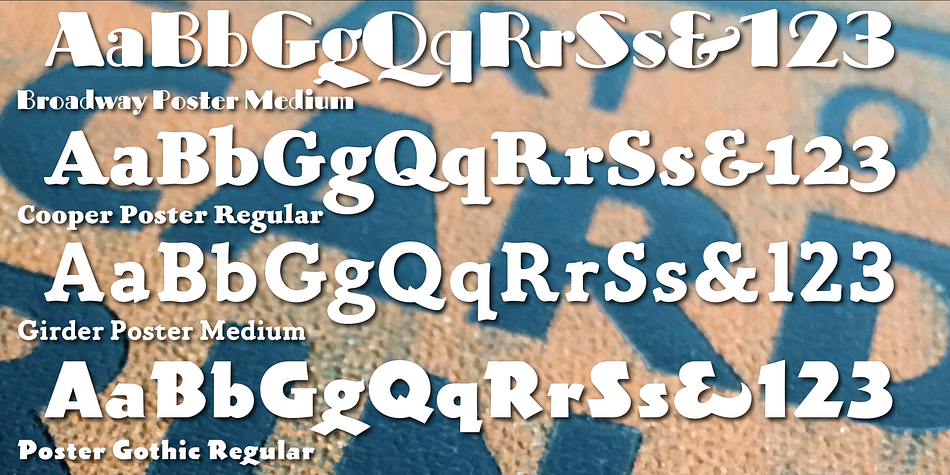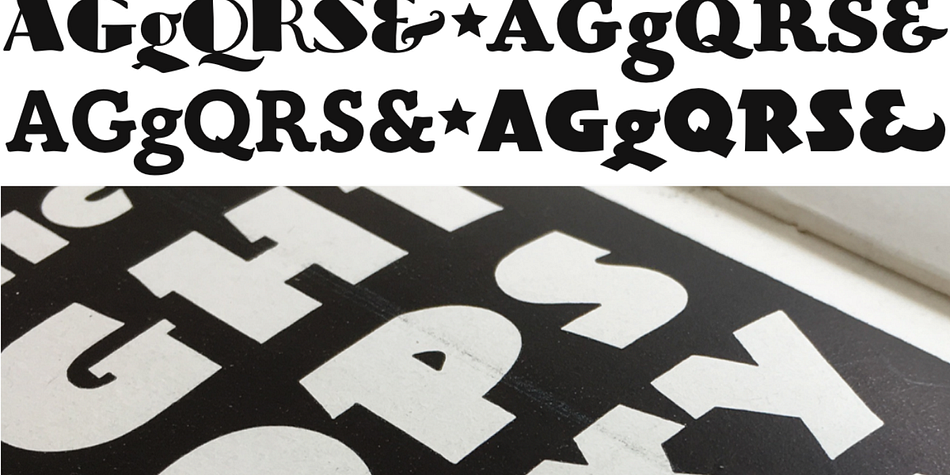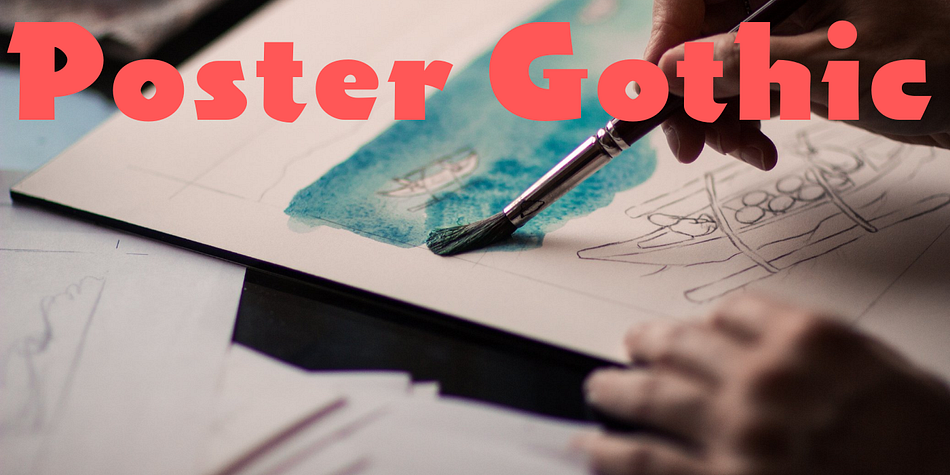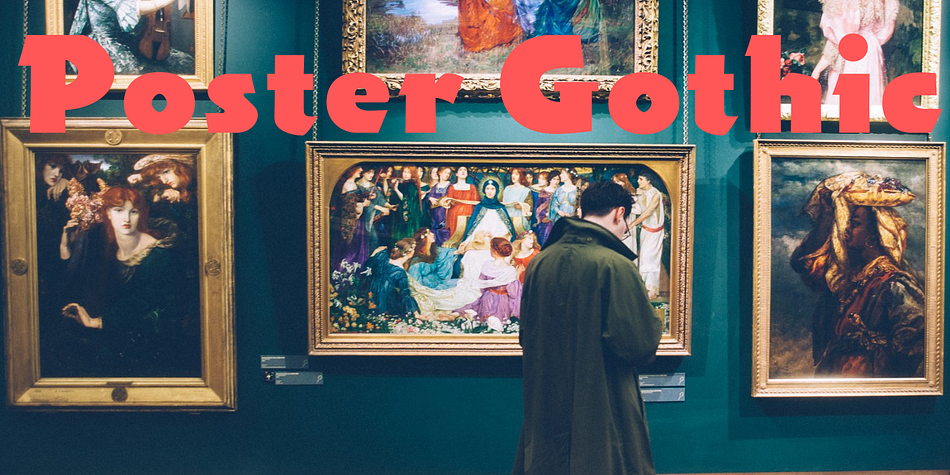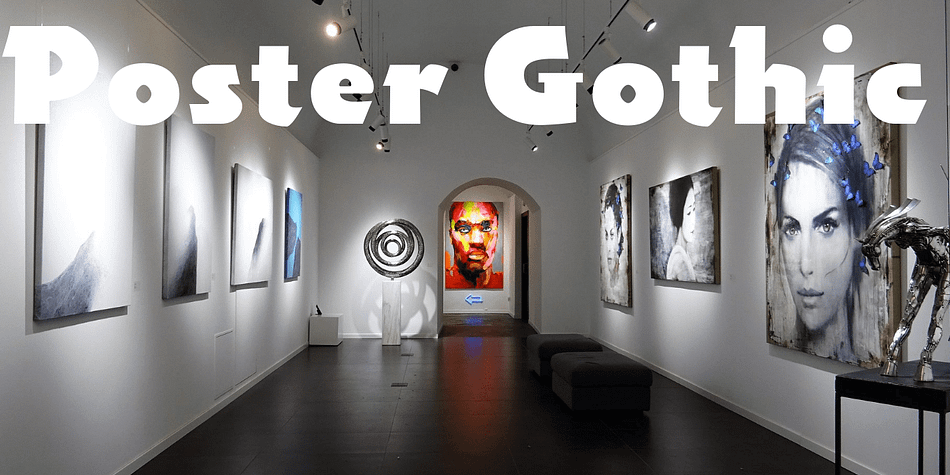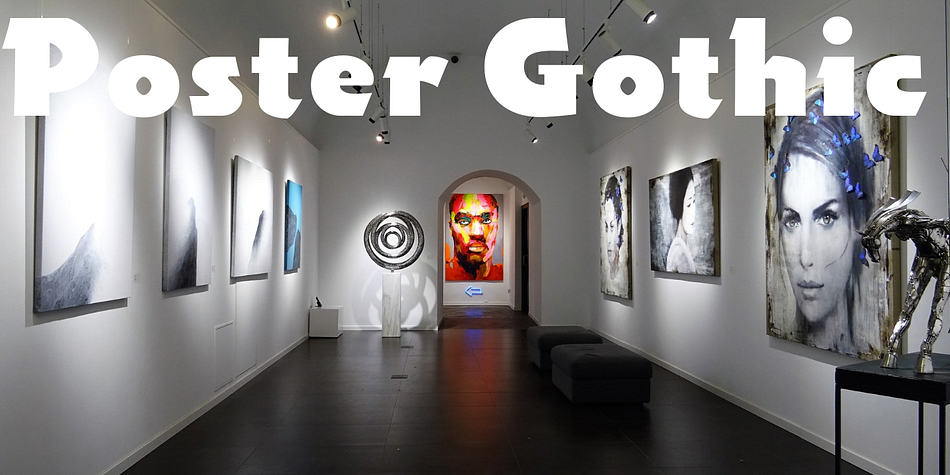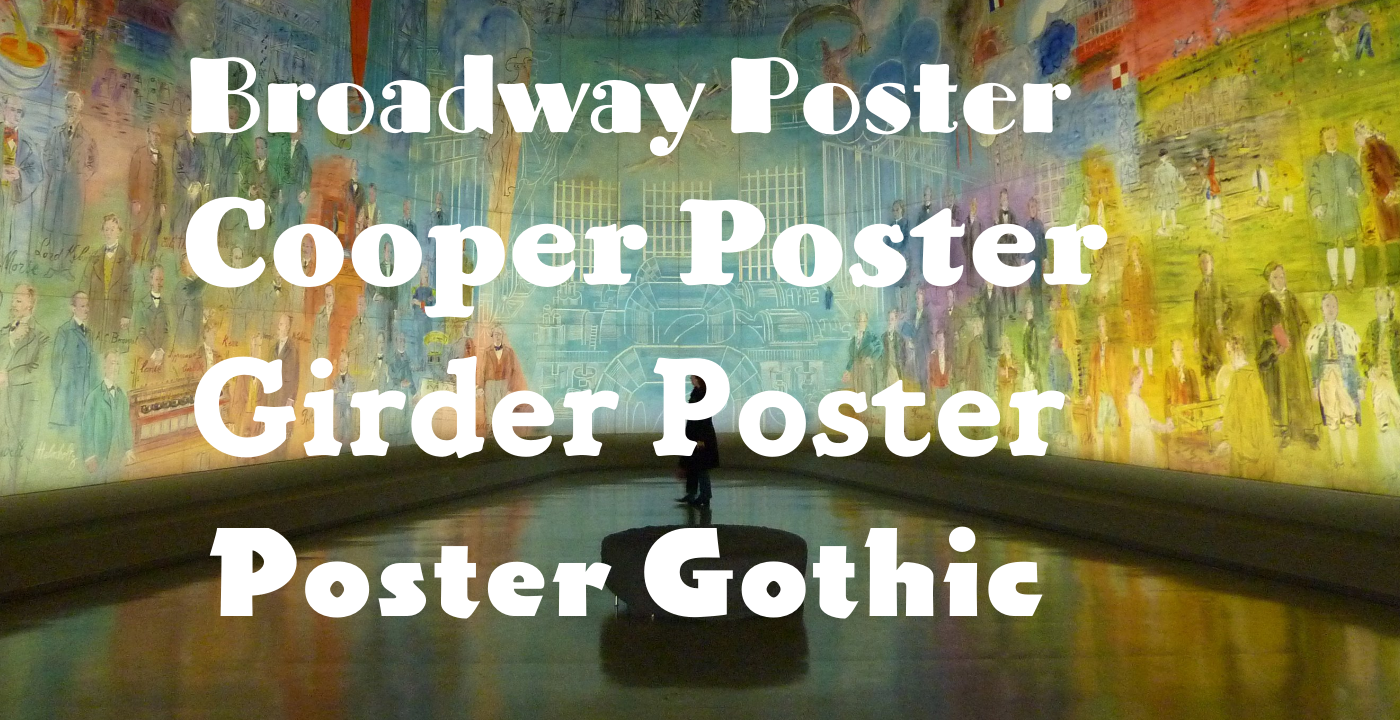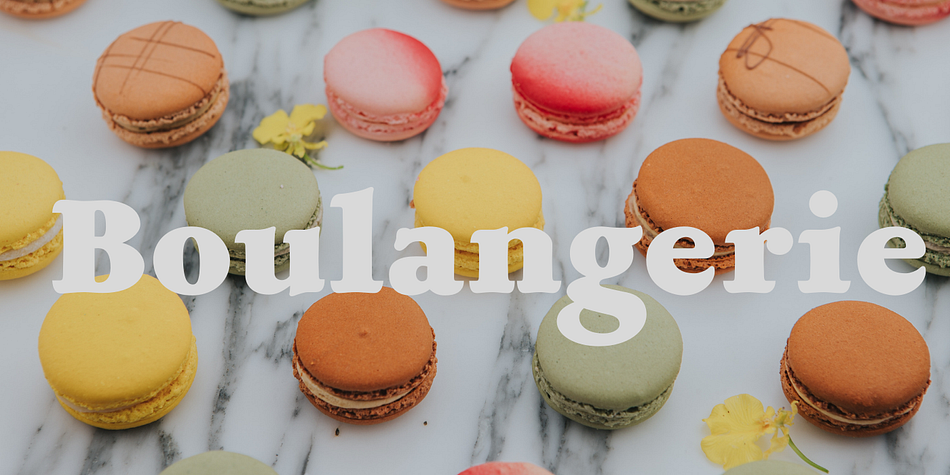
Showcard Collection
Showcard Collection is a multiple classification font family. This typeface has four styles and was published by FontHaus.
The GT ShowCard Collection includes 4 vintage type designs popularized in the mid 1940s. James Eisenberg proclaimed Show Card lettering and display had fully established itself in 1945 as a “definite branch of the Commercial Art industry”. He goes on to say “The ability to do good freehand lettering is a definite asset to any worker in fields such as teaching, selling, engineering, drafting, architecture, commercial art, or window display.”